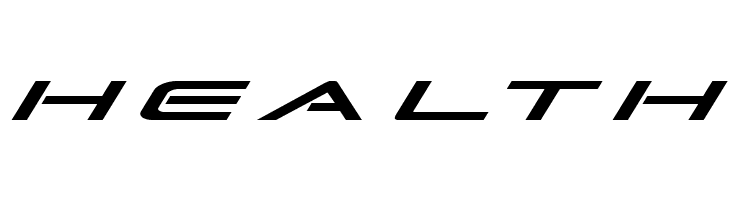
A bold, italicized font with sharp, angular lines and a futuristic style.
A modern, condensed sans-serif font with a sleek, uniform design.
A modern, slightly italicized font with rounded edges and balanced proportions.
A modern, dotted font with a geometric and digital style.
A playful and expressive font featuring emoticon-like characters with exaggerated facial expressions.
A hollow, geometric font with a futuristic and sporty style.
A pixelated, retro-style font with a blocky, digital appearance.
A bold, decorative font with stars and stripes, ideal for thematic designs.
A dynamic, cursive font with fluid connections and an energetic feel.
A bold, italicized font with angular, expanded characters and a modern, edgy style.
A jagged, eerie font perfect for horror themes with scratch-like strokes.
A playful, rounded font with bold, consistent strokes and a friendly appearance.
A bold, distressed font with a rugged, vintage appearance.
An elegant, flowing script font with ornate uppercase and smooth cursive strokes.
A bold, cursive handwritten font with dynamic and expressive strokes.
A bold, dripping, liquid-like decorative font with a dark and mysterious style.
A lively and elegant script font with smooth, flowing connections.
A bold, dripping font with a spooky Halloween theme.
Bold, outlined font with a three-dimensional effect, ideal for impactful designs.
A playful, casual handwritten font with rounded, consistent strokes.
A bold, rugged font with a vintage, hand-crafted appearance.
A modern, node-based font with characters formed by dots and lines.
A bold, gothic-style font with intricate, ornamental details.
A decorative and artistic style with intricate curves and unique shapes.
A decorative font with a melting, dripping effect ideal for dramatic themes.
A modern, geometric sans-serif font with a monospaced appearance and rounded edges.
A bold, eroded font with a rugged, futuristic style.
A gothic, thorny font with sharp, decorative elements.
A semi-bold, italic serif font with elegant and refined characteristics.
A bold, modern sans-serif font with geometric structure and excellent readability.
A bold, graffiti-inspired font with sharp angles and a dripping effect.
A bold, brush-style font with dynamic, hand-painted strokes.